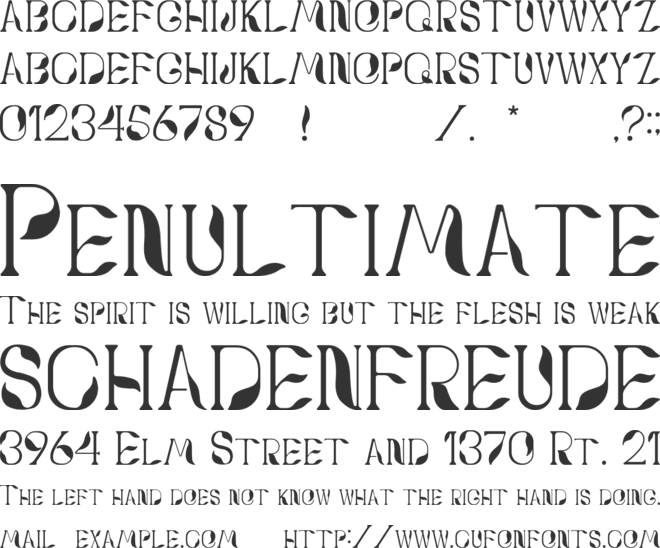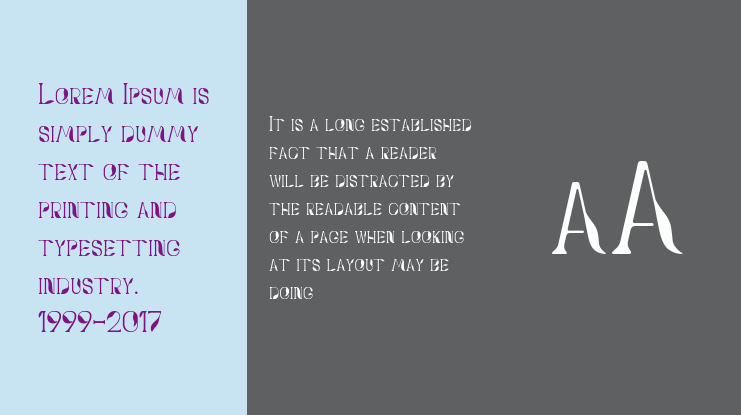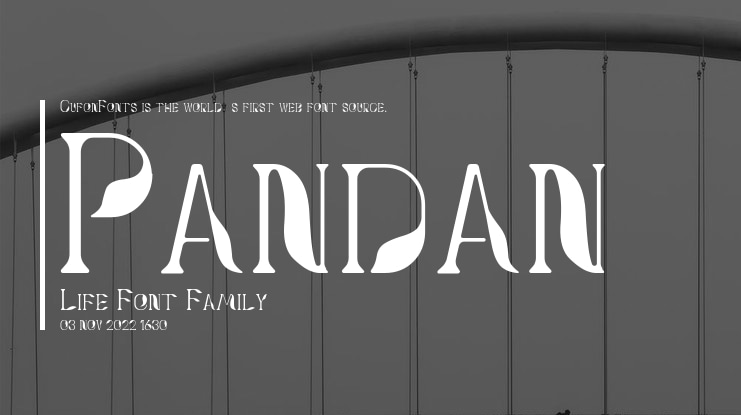
Pandan Life Font
Pandan Life is an organic display font shaped by the graceful curl of pandan leaves. Its subtle leaf-like curves, tapered strokes, and earthy character bring a fresh, homey warmth to logos, menu headers, signage, food packaging, bakery labels, and tropical or wellness branding. The natural, botanical letterforms pair beautifully with green palettes and handcrafted designs.
Pandan Life font preview